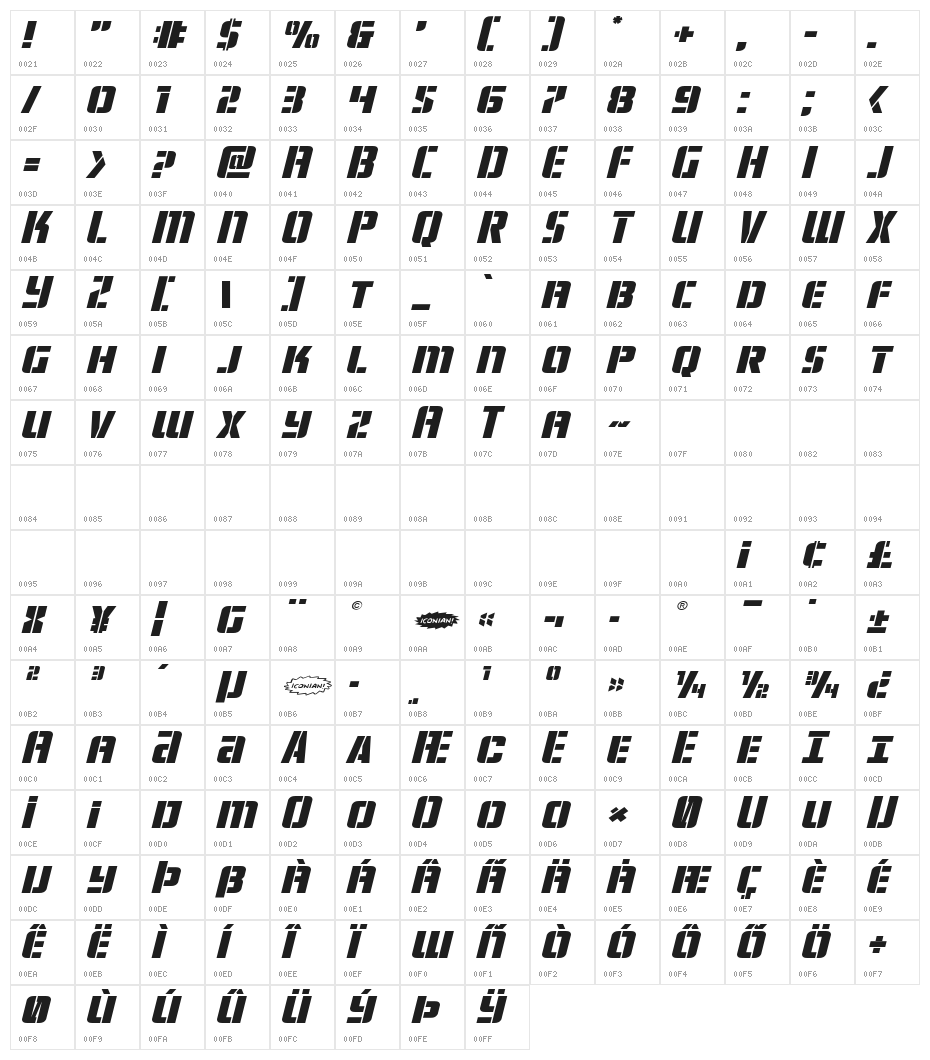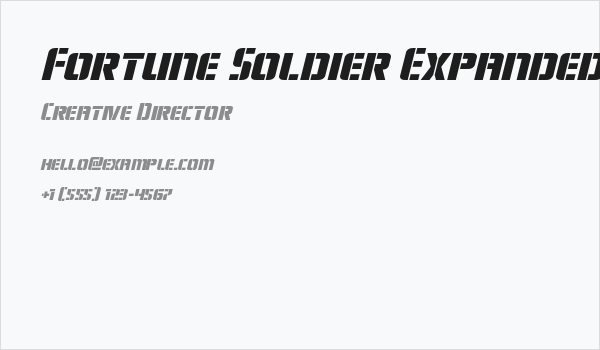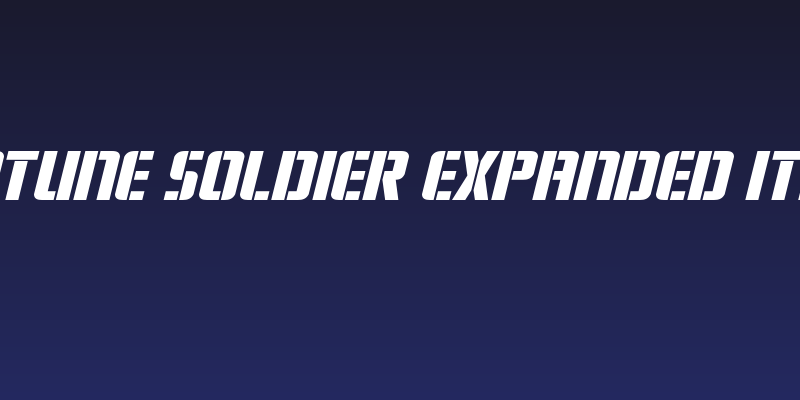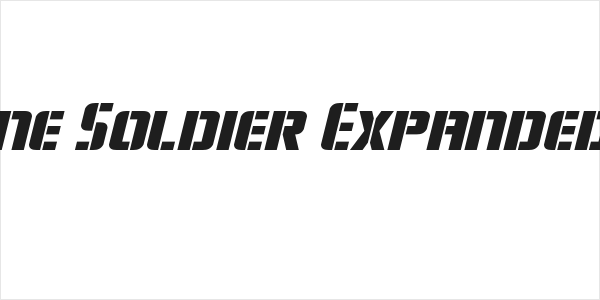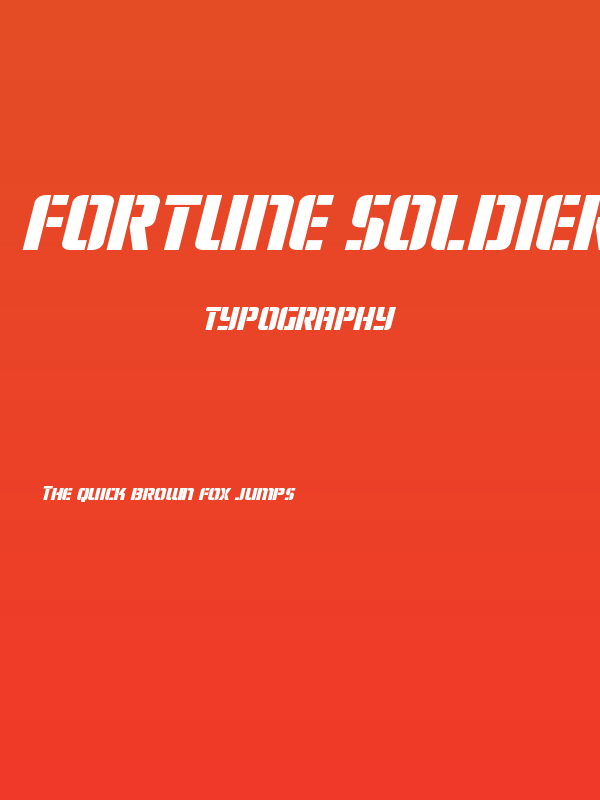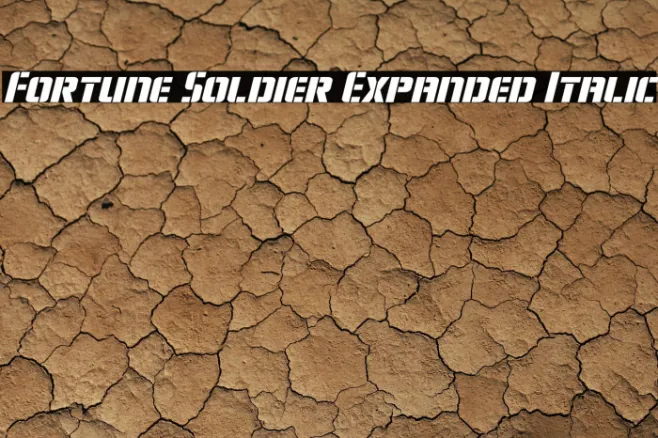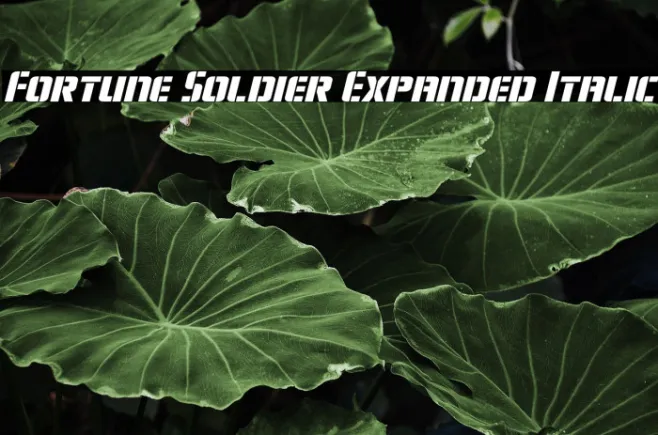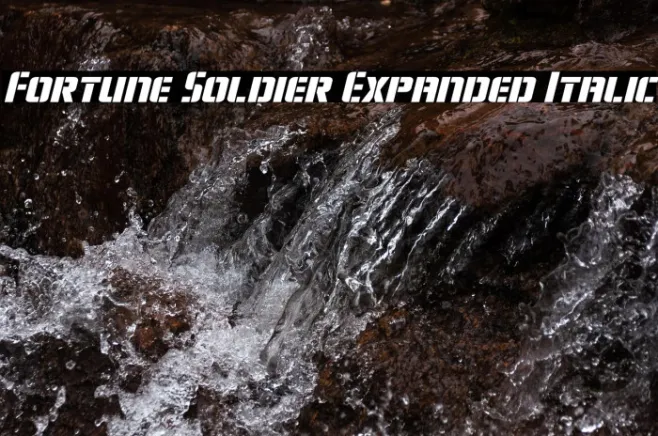
Fortune Soldier Expanded Italic Font
Fortune Soldier Expanded Italic Description
This font features a bold and dynamic style with a distinctly modern and futuristic appearance. The characters are slanted, giving an italicized effect that adds a sense of motion and urgency. Each letter is constructed with thick, block-like strokes that are slightly expanded, enhancing the boldness and making the font stand out. The spacing between characters is tight, which contributes to its compact and cohesive look. The high contrast in stroke thickness emphasizes the strong and assertive nature of the design. This font is ideal for projects that require a powerful and impactful visual presence.
| Proposed Projects | Ideal for sports branding, action movie posters, video game titles, and dynamic advertising campaigns. |